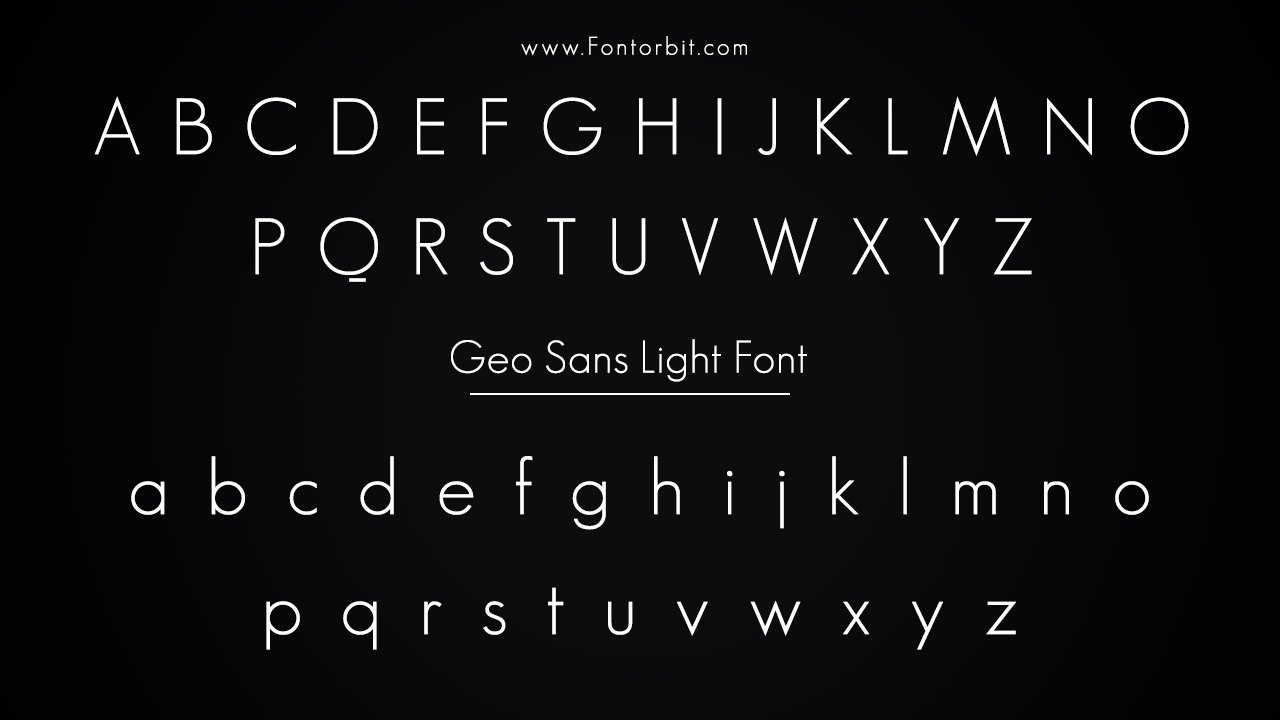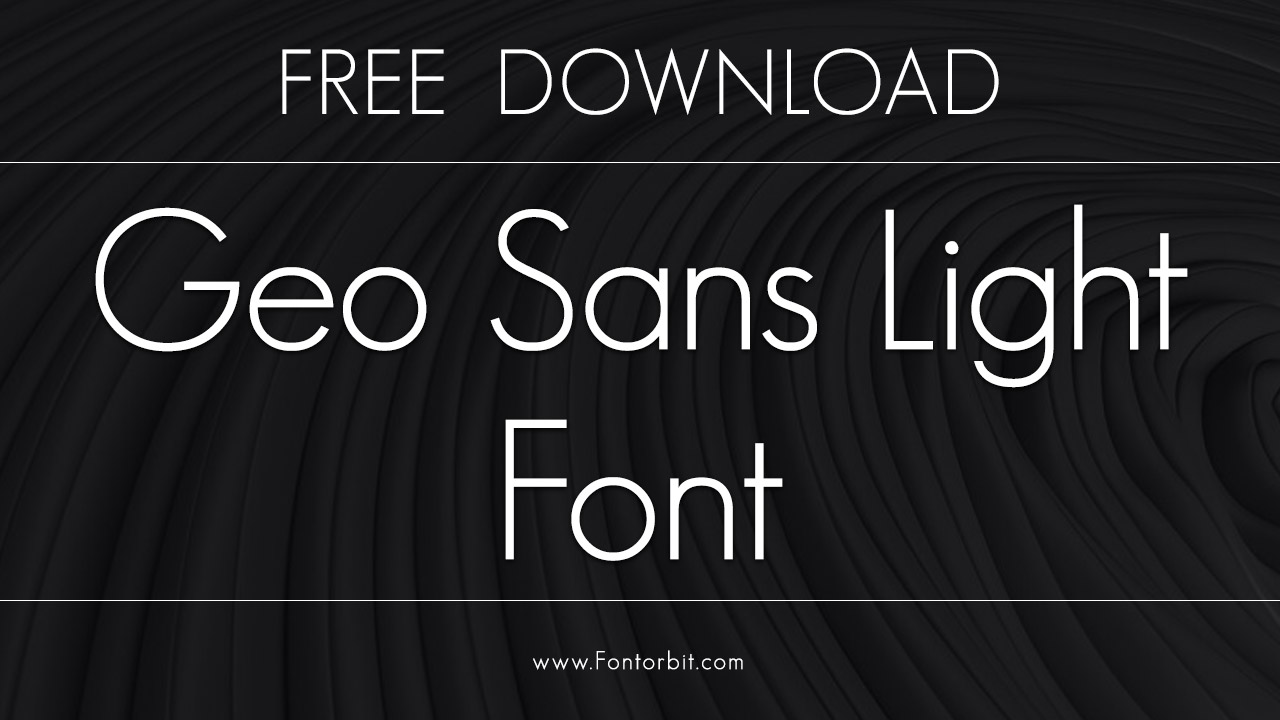
Geo Sans Light is a modern, geometric sans-serif typeface designed by Manfred Klein. It was first introduced as a sleek, legible font, perfect for various uses, from professional work to creative projects.
This typeface is popular for its clean and minimalist design, drawing comparisons to Futura and Spartan. Available in both regular and oblique styles, Geo Sans Light is free for commercial use, making it an excellent choice for designers seeking a versatile and accessible font.
The Geo Sans Light font family is minimalist yet offers versatility through its two main styles:
Both variants are well-suited for various design needs, including digital and print media. The font’s lightweight construction and geometric style make it look professional yet modern.
Notable Uses Of Geo Sans Light
Geo Sans Light is often used in:
- Corporate branding materials
- Website headers and logos
- App interfaces and UI design
- Minimalist posters and brochures
- Professional presentations and documents
Its clarity and geometric nature make it ideal for projects that require a sleek, modern touch.
Geo Sans Light excels in environments where readability and modernity are key. Ideal settings include:
- Business cards and professional stationery
- Website design for tech startups or creative portfolios
- Book or magazine covers that demand a clean aesthetic
- Advertisements that need to capture attention with minimalist design
- Presentations that require sleek, legible text
Due to its geometric letterforms, this typeface is also great for any situation requiring a futuristic or modern aesthetic.
Geo Sans Light is a fantastic choice for designers looking for a modern, free-to-use sans-serif font. With its clean lines and geometric structure, it brings professionalism and elegance to a wide variety of design projects. Whether for web, print, or branding, Geo Sans Light offers a versatile option that remains free for commercial use.
2.What Font Family Does Geo Sans Light Belong To?
Geo Sans Light is a sans-serif font.
4.Can I Use Geo Sans Light For Logo Design?
Yes, it’s an excellent choice for logo design due to its clean and modern aesthetic.
5.Is It Suitable For Web Design?
Absolutely, Geo Sans Light works well in website headers and UI design.
6.How Many Glyphs Are Included In The Font?
The regular version has 235 glyphs, while the oblique version has 236.